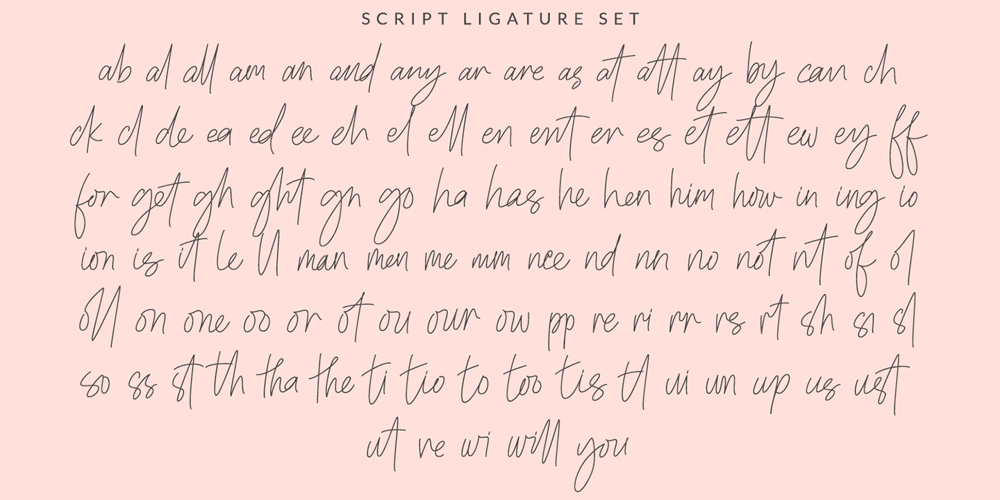
One Mith
One Mith font
One Mith Font Family was designed by Abdul Azis and published by AZCRTV Studio. One Mith contains 2 styles and family package options. One Mith is a combination of two languages namely One (English) and Mith (Albanian) which means a myth which is a hope of the creation of this font which is no longer a myth anymore that we can make serif fonts.This font is included with a style signature font that will complement your design. This font is also very suitable in various types of designs especially designs that require feminine signature fonts such as designs for brand perfume, cosmetics, fashion, as well as women’s magazines.ThankyouAbdul Azis